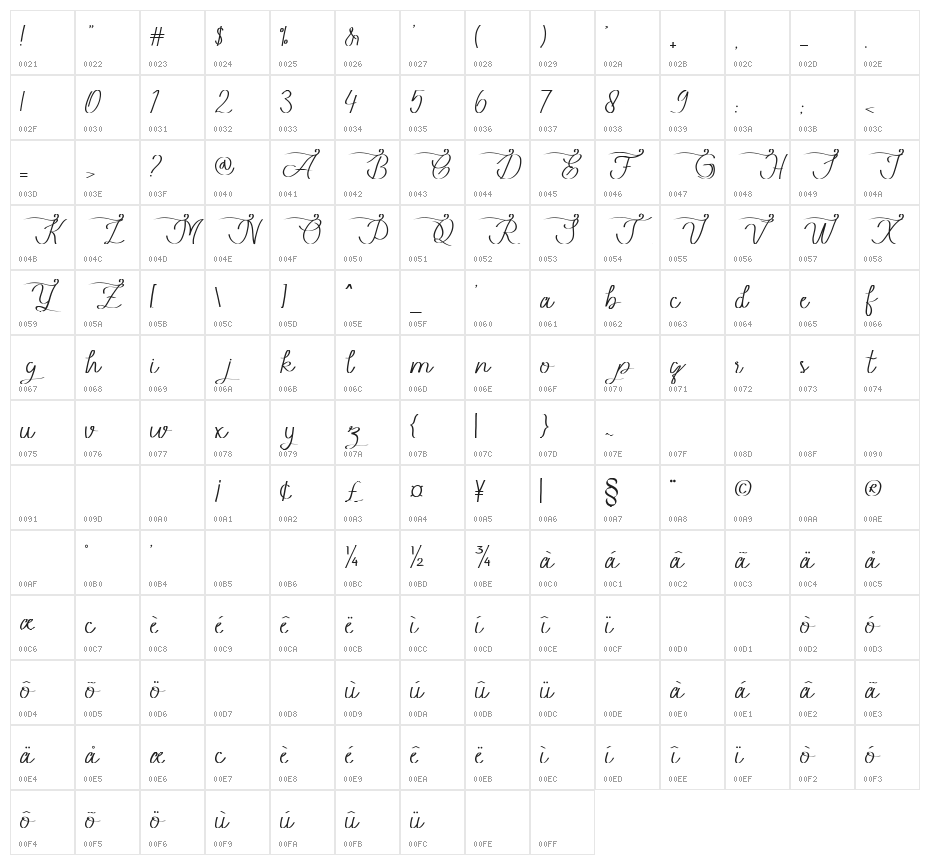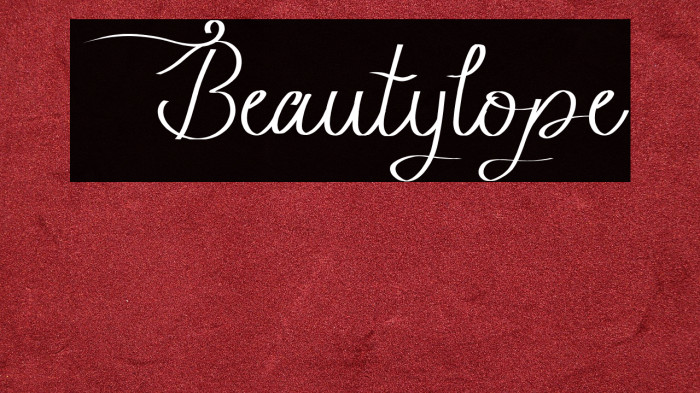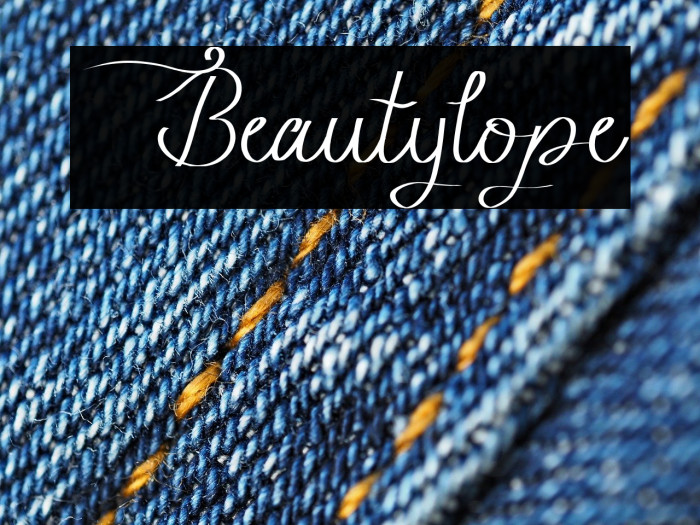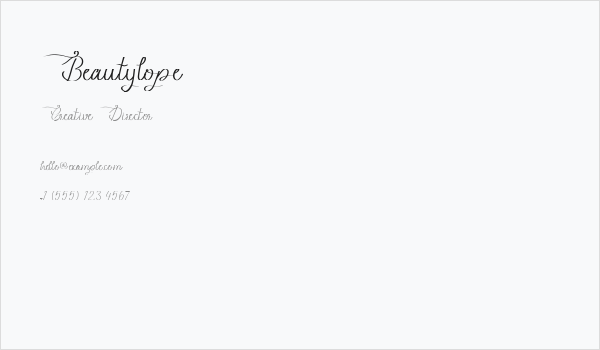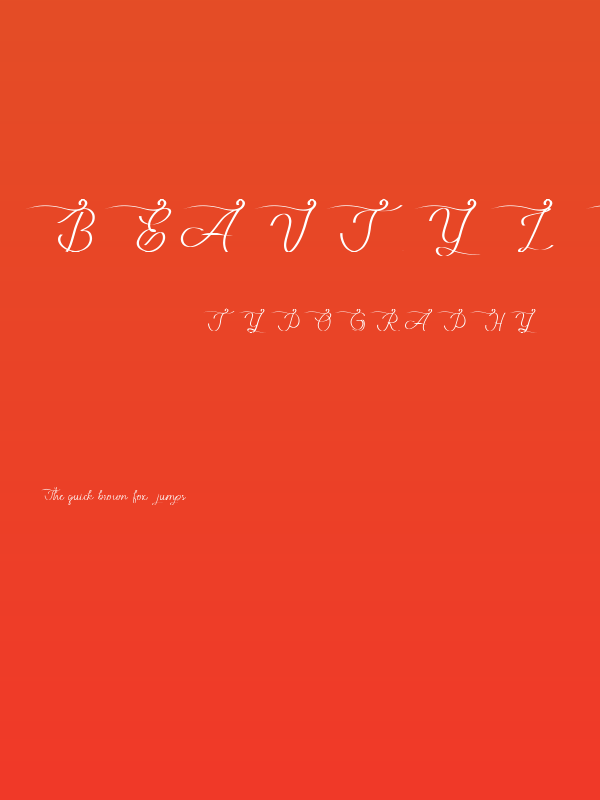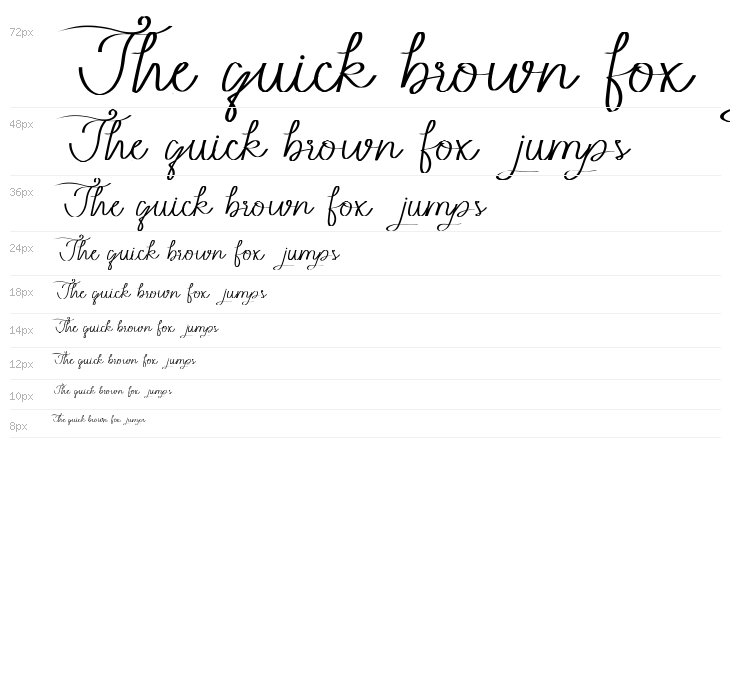
Beautylope Font
Beautylope Description
This elegant script font features a flowing, cursive style with intricate swashes and flourishes. The uppercase letters are adorned with delicate loops and curves, giving a sense of sophistication and grace. The lowercase letters maintain a consistent slant, enhancing the fluidity and connectedness typical of script fonts. The numerals are stylish and maintain the same cursive flair, making them suitable for decorative purposes. Special characters are thoughtfully designed to match the overall aesthetic, ensuring a cohesive look across all text elements. This font exudes a sense of elegance and is perfect for projects that require a touch of class and refinement.